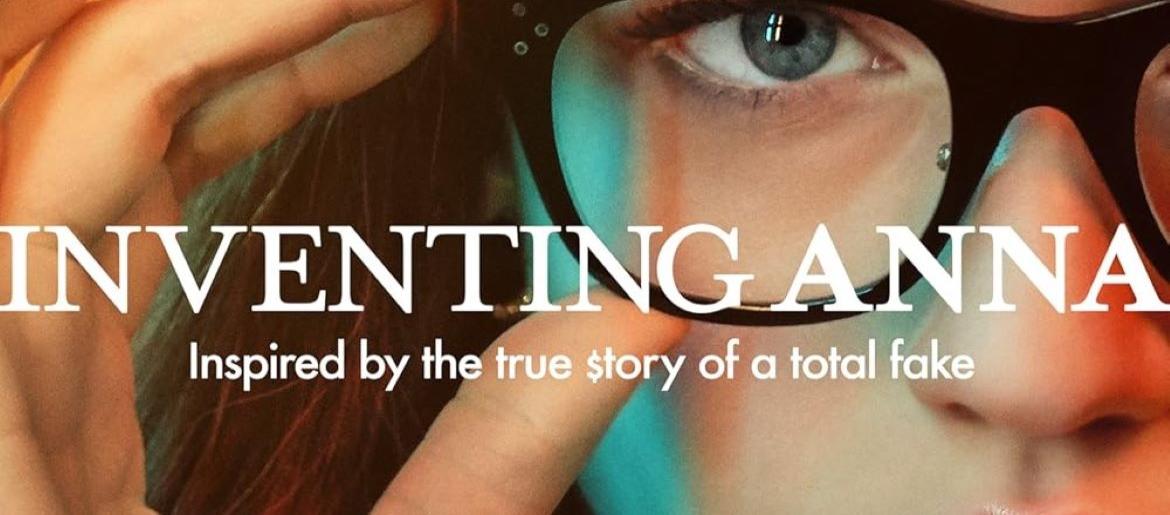
Inventing Anna Font
What Font is Inventing Anna?
Inventing Anna Font captures the polished sophistication and modern confidence that define Netflix’s hit drama. The title design features two distinct typefaces — Foundry Wilson Normal for “INVENTING” and Schorel Norm Black for “ANNA.” Both are commercial fonts that perfectly reflect the show’s blend of elegance, ambition, and deception. For designers, there are free alternative fonts available that replicate the same refined yet assertive tone, ideal for projects centered on luxury, media, or high-society intrigue.
About Inventing Anna
Inventing Anna (2022) is a Netflix limited series created by Shonda Rhimes, inspired by the real-life story of Anna Sorokin — a con artist who posed as a wealthy New York socialite. Starring Julia Garner as Anna Delvey, the show follows journalist Vivian Kent as she investigates how one woman managed to deceive Manhattan’s elite. Blending drama, journalism, and true crime, Inventing Anna explores ambition, identity, and the allure of wealth in the modern world.